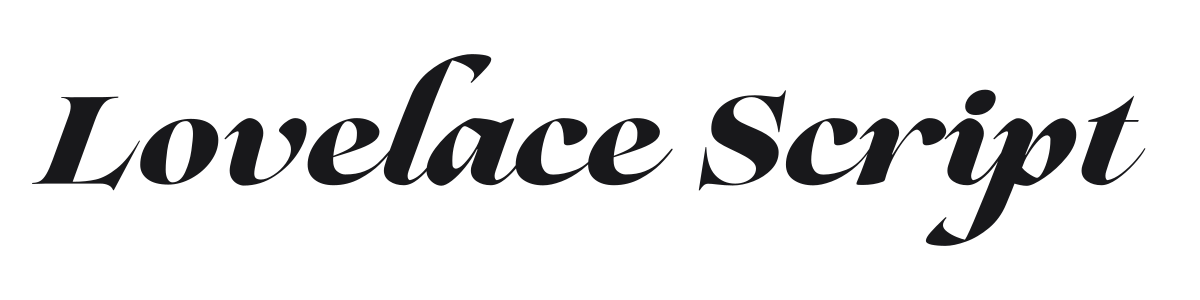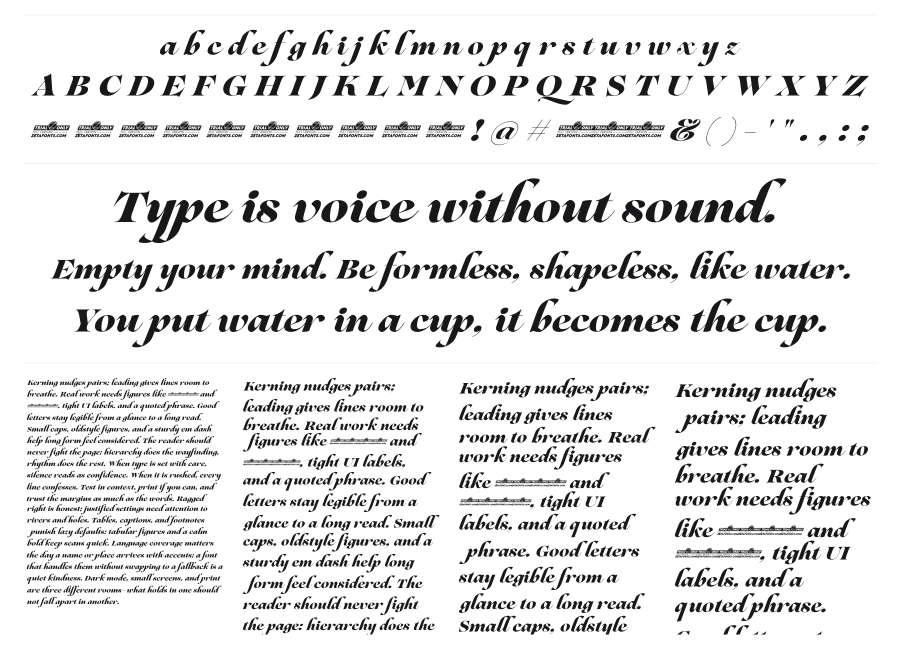
Lovelace Script
Lovelace Script is the calligraphic arm of Zetafonts' Lovelace family, a bold formal script steeped in Victorian typography and Renaissance hand-lettering tradition. The extreme stroke contrast, lush swashes, and connected lowercase letters trace a lineage through Pheimester, Goudy, and Benguiat back to ink on vellum. It carries genuine historical weight while remaining warmly expressive rather than stiff or ceremonial.